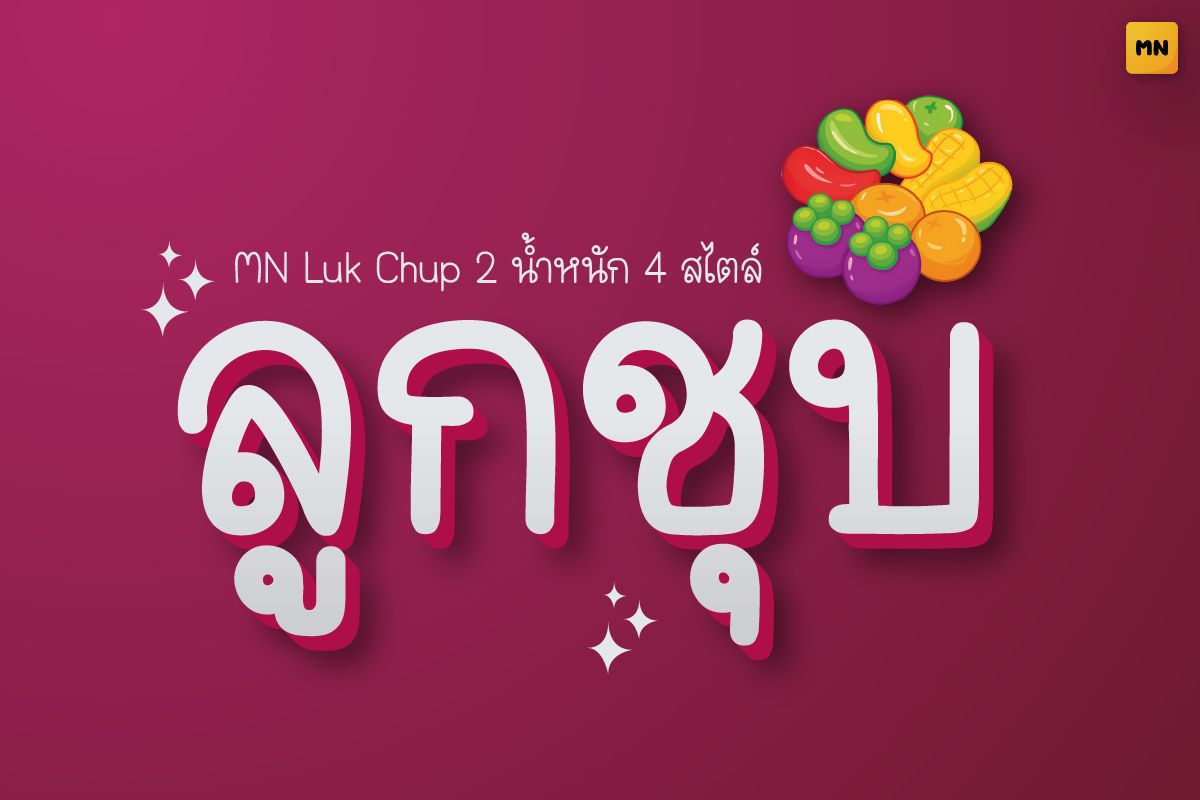
MN Luk Chup Bold
A cute Thai handwriting font with rounded, smooth strokes and a friendly look. Its cheerful and sweet personality makes it perfect for dessert shops, cafés, or any warm and inviting design.